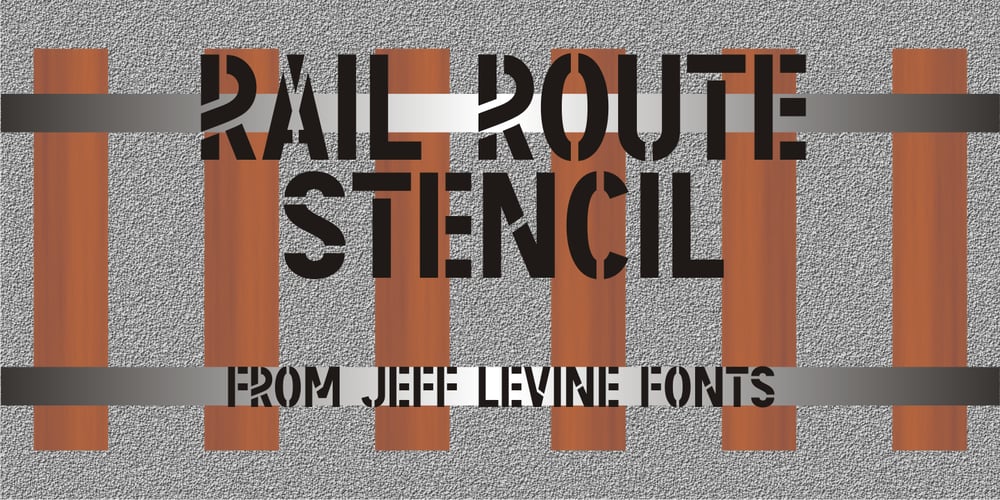
Rail Route Stencil JNL Font Family was designed by Jeff Levine and published by Jeff Levine. Rail Route Stencil JNL contains 1 styles and family package options. Rail Route Stencil JNL is based on a hand-cut paper stencil depicting a logo for the Baltimore and Ohio (B&O) Railroad. The lettering is from the motto encircling an image of the Capitol dome: “Linking 13 Great States with the Nation”. This motto was not present on some other versions of the B&O logo.